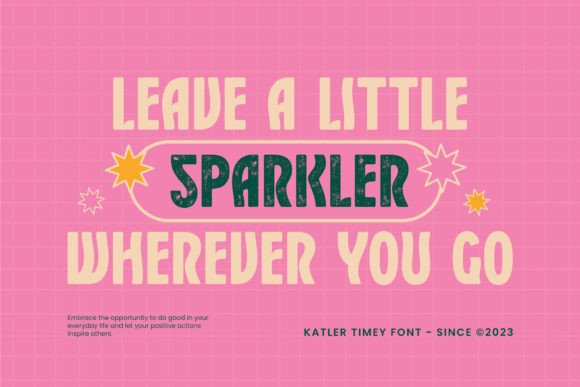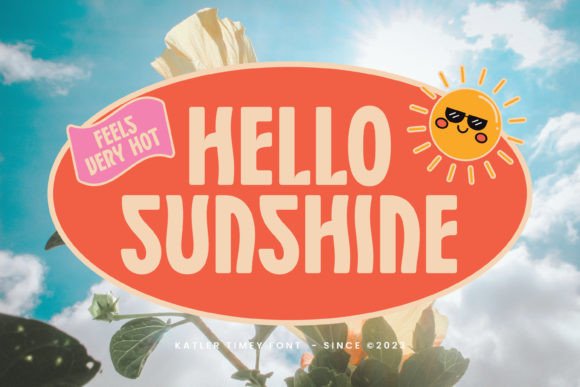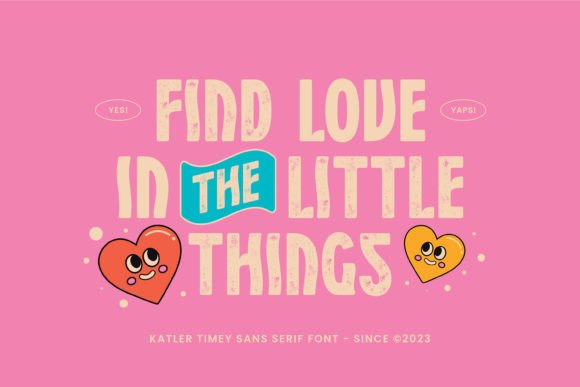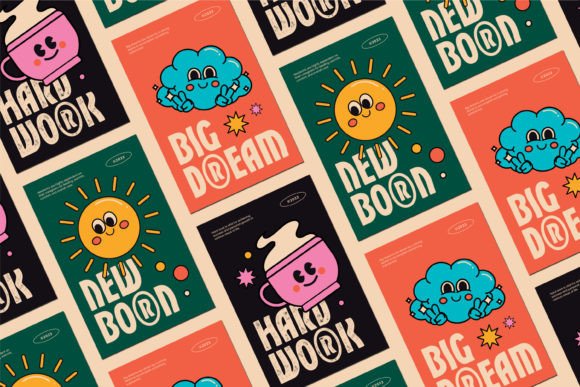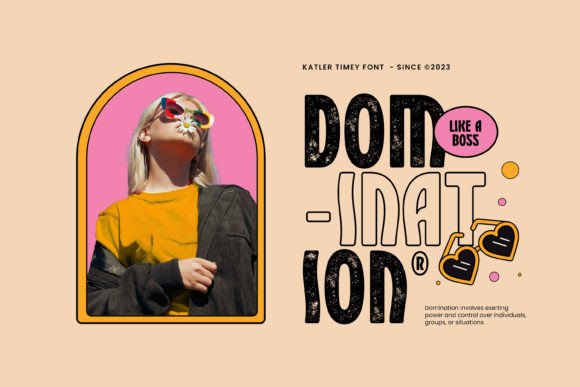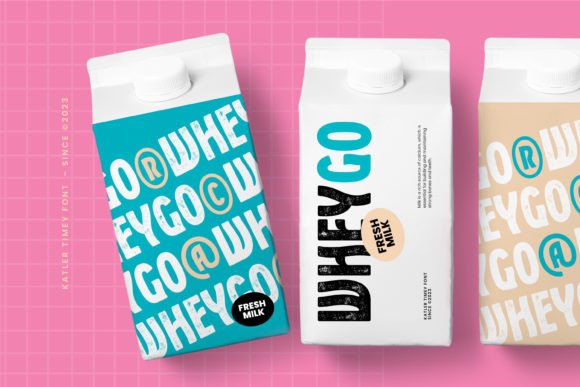
Introduction to Katler Timey Font Font
Fonts play a crucial role in design, and the Katler Timey Font font is a typeface that brings both character and versatility to any project. Whether you’re working on a branding project, a website, or a print design, the Katler Timey Font font offers a unique style that can elevate your work.
Katler Timey has a strong personality which makes it a perfect choice for display projects.
Perfectly suited for a wide range of applications from branding and logos, to candy and food packages, Katler Timey is a bright and fun typeface with a unique appearance .
Key Features of Katler Timey Font Font
Why Choose Katler Timey Font Font?
The Katler Timey Font font is more than just a typeface – it’s a design tool that helps you communicate your message with style and clarity. Its unique character set and versatile design make it suitable for a wide range of applications, from elegant invitations to bold headlines.
With its carefully crafted letterforms and balanced proportions, the Katler Timey Font font ensures readability and visual appeal across all mediums.
What makes Katler Timey Font font special?
The Katler Timey Font font stands out with its unique design, exceptional readability, and versatility across various design applications.